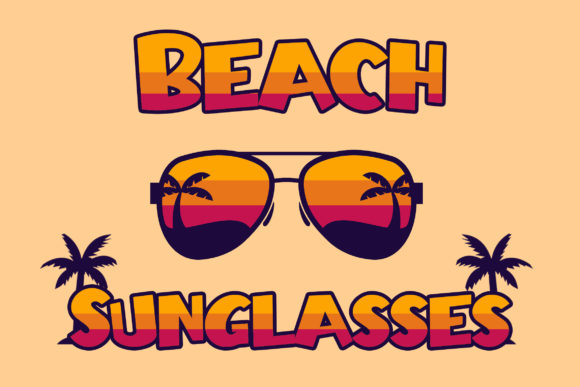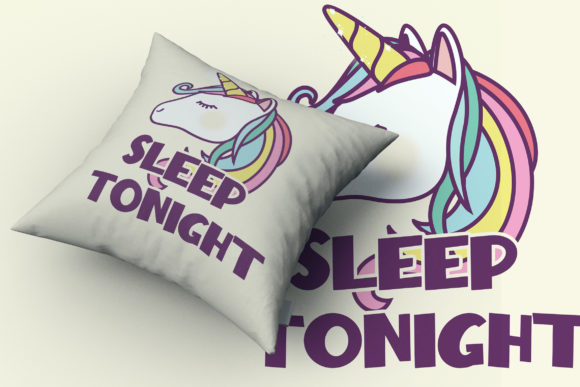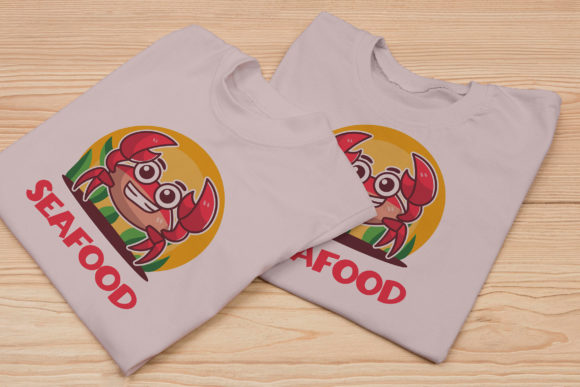
Introduction to Outlooks Font
Have you ever been working on a creative project and suddenly you’re stuck on the perfect font to convey the playful, whimsical atmosphere you’re aiming for? You scroll through countless options, but none of them quite capture the essence of your design. That’s when I discovered the Outlooks Font, and it changed everything.
This delightful display font is a game-changer for designers who want to add a touch of joy and personality to their work. With its fun, chunky letters, Outlooks Font is perfect for cartoon-related designs, children’s games, and any creation that requires a lovely, high-quality touch.
Key Features of Outlooks Font
- High-quality design resource with a transparent background, ideal for creative projects.
- Features a unique, modern design that’s perfect for a variety of creative projects, from branding to web design.
- Includes a comprehensive character set, with over 200 glyphs and support for extended Latin languages.
- Designed to be highly legible, with clear lines and a clean, minimalist aesthetic.
Honest Review: Outlooks Font
As a designer, I’m always on the lookout for high-quality fonts to elevate my creative projects. I recently had the chance to try out Outlooks Font, and I must say it’s been a game-changer.
Here are some things that work well: ✨ The font is incredibly versatile, suitable for a wide range of designs from modern to vintage. The high-quality design ensures that it looks great on both digital and print media. The free download option is also a huge plus, making it accessible to designers of all levels.
- ✨ Versatile design suitable for various creative projects
- ✨ High-quality design that looks great on digital and print media
However, there are a few limitations: ⚠️ The font’s transparent background can sometimes make it difficult to work with, especially if you’re using it on a busy design. Additionally, the font is not available in as many formats as I would like, which can be a problem if you need to use it on a specific platform.
Overall, I’m really impressed with Outlooks Font. While it’s not perfect, its strengths far outweigh its weaknesses. If you’re looking for a high-quality font for your next creative project, I would definitely recommend giving it a try.
Outlooks Font is a versatile design resource that can be used in a variety of creative projects, including: